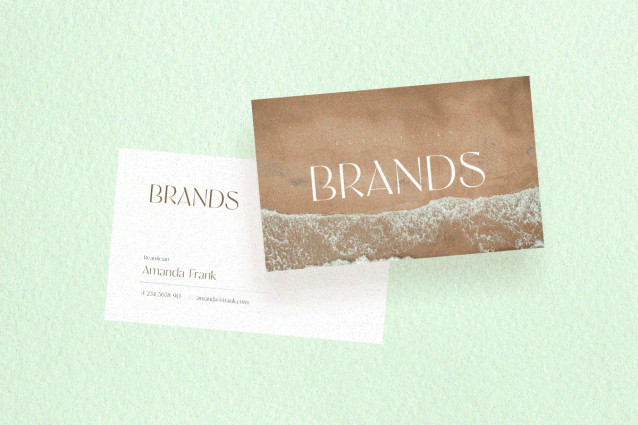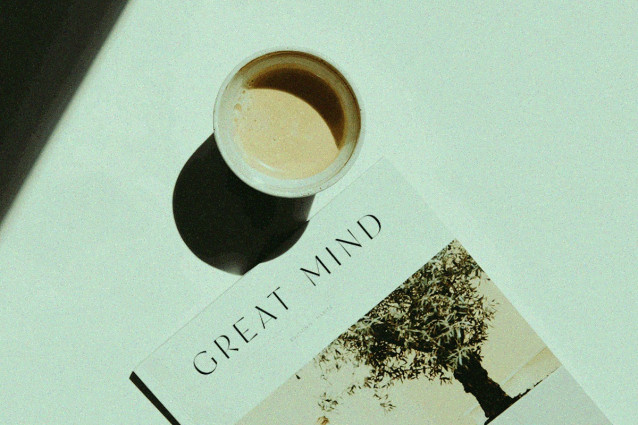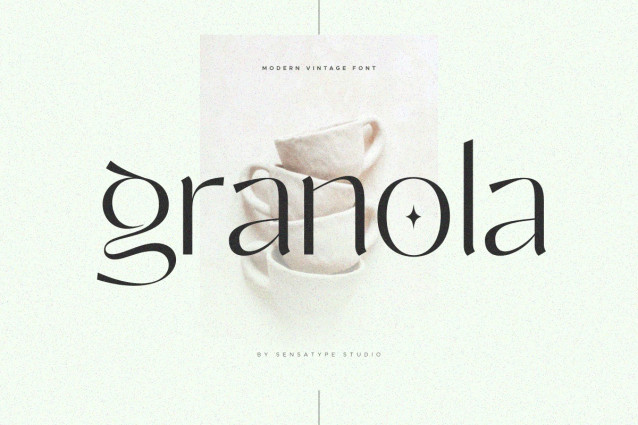
Granola Font
Granola Font is a collections of a modern with cultural display font, give you unique looks for any branding or logo design needs. granola font is ready to use on Magazine, Social Media, Poster, Business Card, and Many more that needs Unique touches.